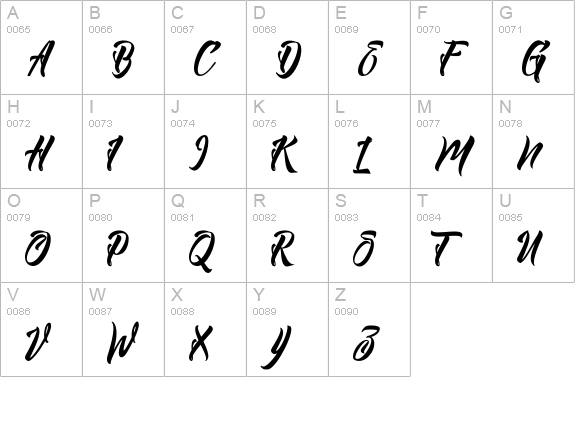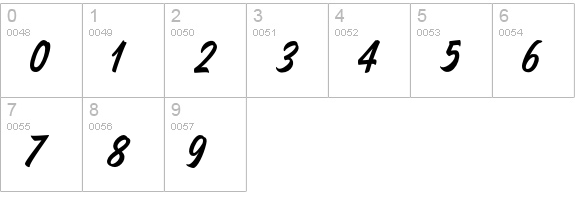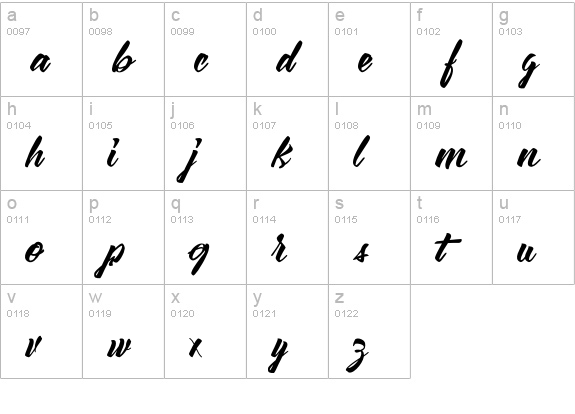
Vizels VMF Font Details
Vizels VMF is a free for personal use font in the Script > Brush category. It has been downloaded 134 times and is available for Windows, Mac and Linux.
Introducing Vizels VMF, a captivating and versatile typeface that will bring a touch of elegance and modernity to your design projects. With its sleek and stylish design, Vizels VMF is perfect for a wide range of applications, from branding and advertising to editorial and web design. Featuring clean lines and a balanced composition, this font exudes sophistication and professionalism while maintaining a contemporary edge. The carefully crafted letterforms of Vizels VMF create a harmonious flow, making it highly legible and easy to read in any size or format. Vizels VMF is freely available to download at FontsMarket.com, making it accessible to designers and enthusiasts alike. This generous offer allows you to explore the full potential of this remarkable typeface without any cost, enabling you to elevate your creative projects without breaking the bank. Whether you are working on a logo, marketing collateral, or a website, Vizels VMF will add a touch of refinement and originality to your designs. Its versatility allows it to seamlessly adapt to any project, whether it be for print or digital media. Don't miss out on the opportunity to enhance your design toolkit with Vizels VMF. Download it for free at FontsMarket.com and unlock a world of possibilities for your next creative endeavor.